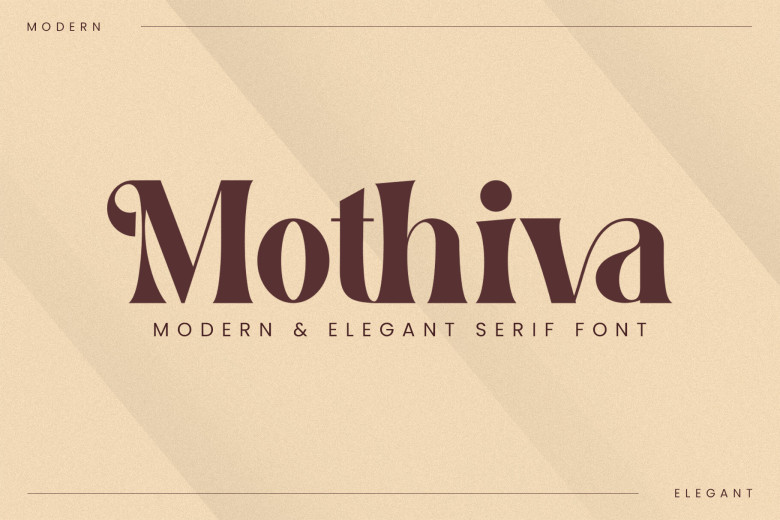
Mothiva Font
“Mothiva Serif” is a character set integrating both balance and elegance and this elegant font embodies beauty and style. It blends well with invitation card design, corporate logo, movie caption, film name, business card name card, book title, brand name and so on, any of the numerous examples of art design just waiting to be given formal expression in print.
Mothiva Serif Font